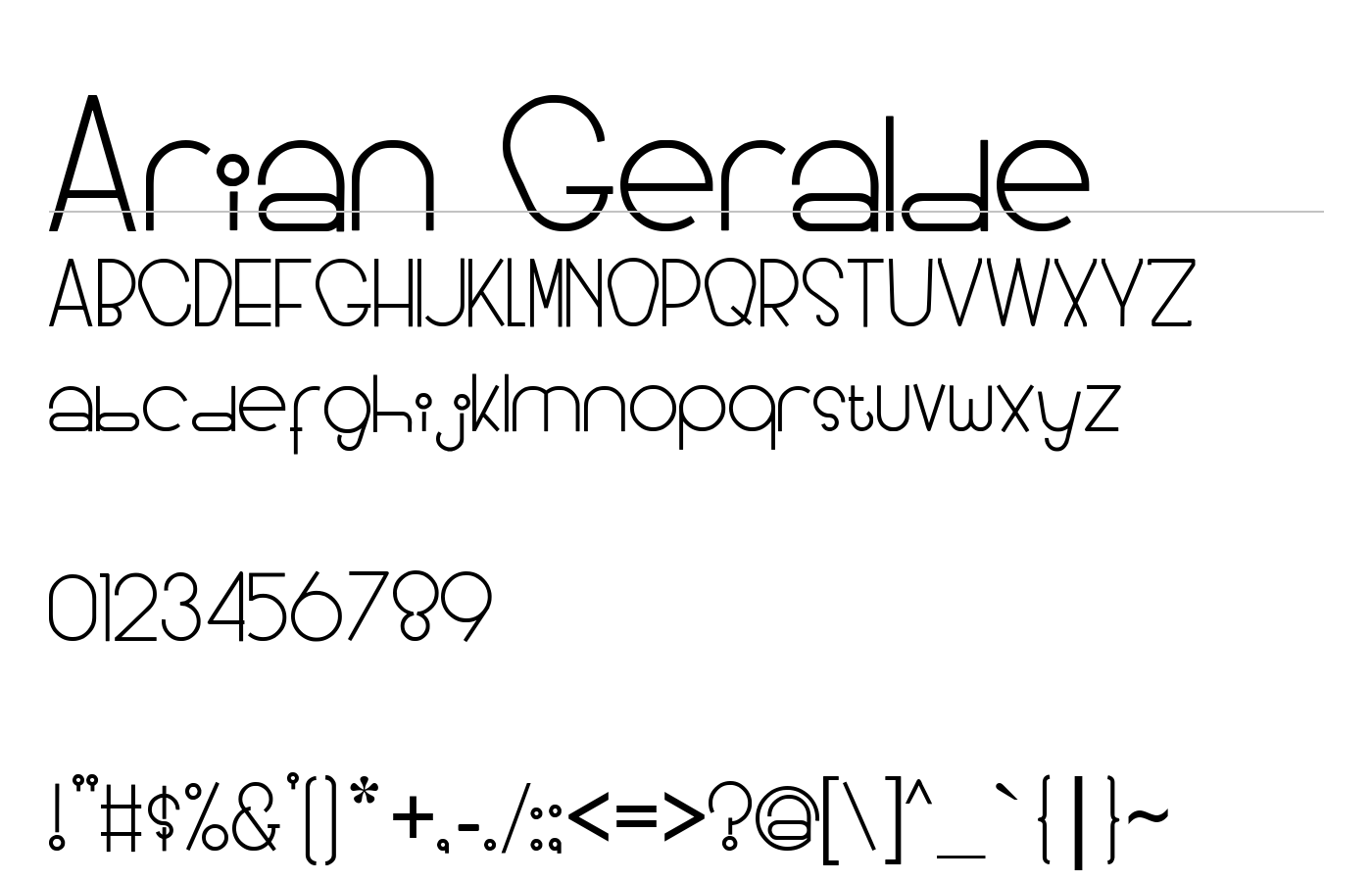
Arian Geralde is a slender, modern sans serif font characterized by its thin, geometric letterforms and smooth curves, giving it a futuristic and minimalistic feel. Its tall x-height and delicate stroke contrast create an airy, elegant appearance, making it ideal for stylish branding, high-end fashion headlines, and clean editorial designs where a refined and contemporary look is desired. This font works best in large sizes, adding a touch of sophistication and uniqueness to creative projects.
Arian Geralde Font